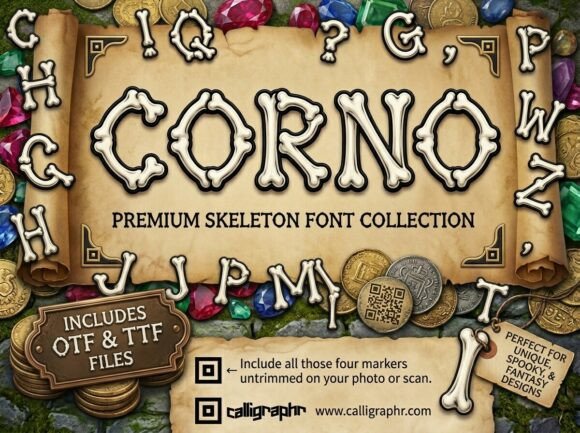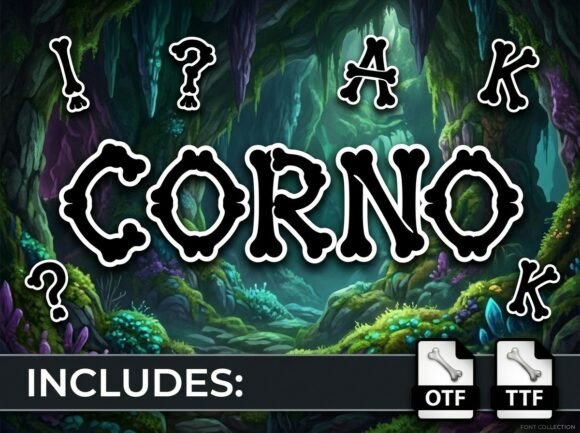
Unearth the Prehistoric Charm of Corno Font: A Macabre-and-Mighty Typeface
Are you a designer or crafter looking for a unique and captivating font to add a touch of the prehistoric to your projects? Look no further than Corno, a skeletal display typeface that embodies a “macabre-and-mighty” soul. This bold and adventurous font is constructed from rhythmic, hand-drawn “bone-and-joint” silhouettes, bridging the gap between ancient fossils and modern gothic branding.
The Inspiration Behind Corno Font
Corno Font is inspired by the ancient fossils of prehistoric creatures, bringing a touch of the past to your designs. The font’s creator aimed to capture the essence of these ancient beings, transforming their skeletal remains into a unique and striking typeface. The result is a font that exudes a sense of mystery, power, and adventure.
Key Features of Corno Font
Corno Font boasts several key features that make it an ideal choice for designers and crafters:
- Bold Letterforms: Corno’s letterforms are bold and sturdy, making them perfect for headlines, titles, and statements that demand attention.
- Bone-and-Joint Silhouettes: The font’s unique construction from hand-drawn “bone-and-joint” silhouettes adds an organic, prehistoric feel to your designs.
- Heavy Structural Weight: Corno’s robust structure ensures that your text remains legible, even at larger font sizes.
- Adventurous Personality: Corno’s bold and daring personality shines through in every letter, making it perfect for projects that require a sense of excitement and exploration.
Perfect for Gothic and Prehistoric-Inspired Projects
Corno Font is the premier choice for projects that require a touch of the prehistoric and the macabre. Some ideal applications for Corno include:
- Independent Natural History Museum Identities: Corno’s unique blend of ancient and modern elements makes it perfect for natural history museums looking for a bold and eye-catching brand identity.
- Boutique Halloween Shop Logos: Corno’s spooky, prehistoric vibe is ideal for Halloween-themed shops and events.
- Pirate-Themed Book Covers: Add a touch of swashbuckling adventure to your book covers with Corno’s bold and daring letterforms.
- High-Impact Social Media Headers: Corno’s bold and attention-grabbing design makes it perfect for social media headers that require a sense of excitement and creativity.
Corno Font is a unique and captivating typeface that brings a touch of the prehistoric to your designs. With its bold letterforms, bone-and-joint silhouettes, and adventurous personality, Corno is the perfect choice for designers and crafters looking to add a sense of excitement and exploration to their projects. Whether you’re working on a natural history museum identity, a boutique Halloween shop logo, or a pirate-themed book cover, Corno Font is sure to make a lasting impression.